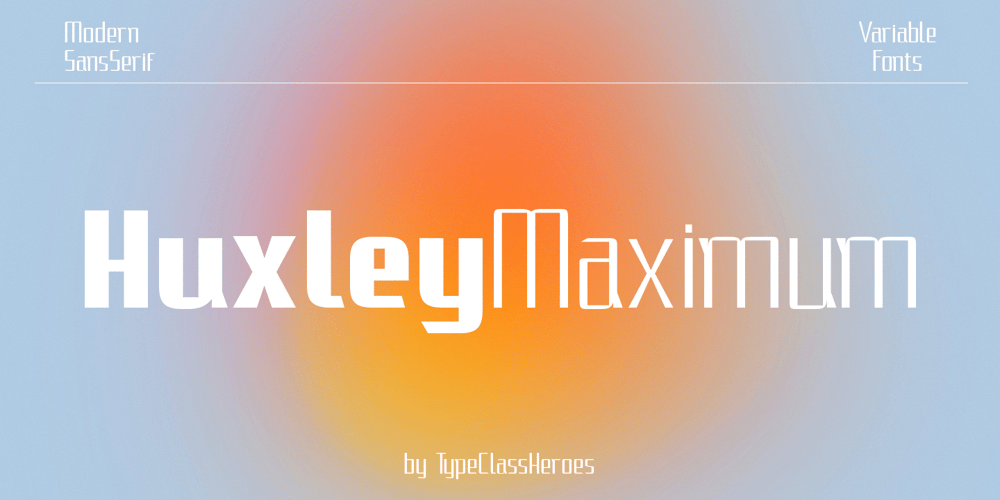
Huxley Maximum Font Family was designed by Pande Made and published by TypeClassHeroes. Huxley Maximum contains 18 styles and family package options. Huxley Maximum is a Modern sans serif display. Its simple design with various width and weight that you can explore and combine creating rhythm and texture for comfortable reading. In variable version, it allows multiple options when designing, adapting to different composition solutions. use this font for any branding, product packaging, invitation, quotes, t-shirt, label, poster, logo etc.Feature Uppercase & Lowercase Number & Symbol International Glyphs Multilingual support Alternative Feel free to drop us a message any time and follow my shop for upcoming updates